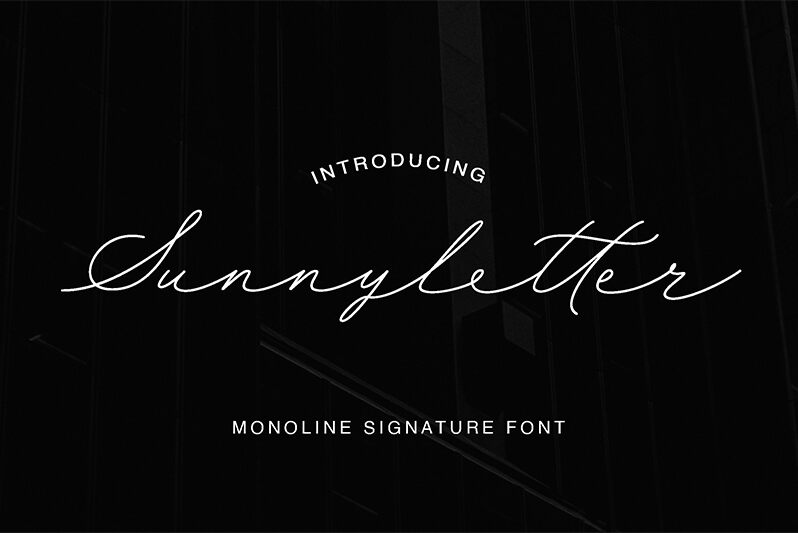
Sunnyletter is the perfect font for all your creative projects! Designed by MJType, this extra-light, monoline handwritten signature font will add a touch of elegance and sophistication to any design. Whether you're working on branding materials, wedding invitations, or social media graphics, Sunnyletter's delicate strokes and graceful curves will make your text stand out. The unique style of this font is also perfect for adding a personal touch to any project. So why settle for a generic font when you can elevate your designs with Sunnyletter?